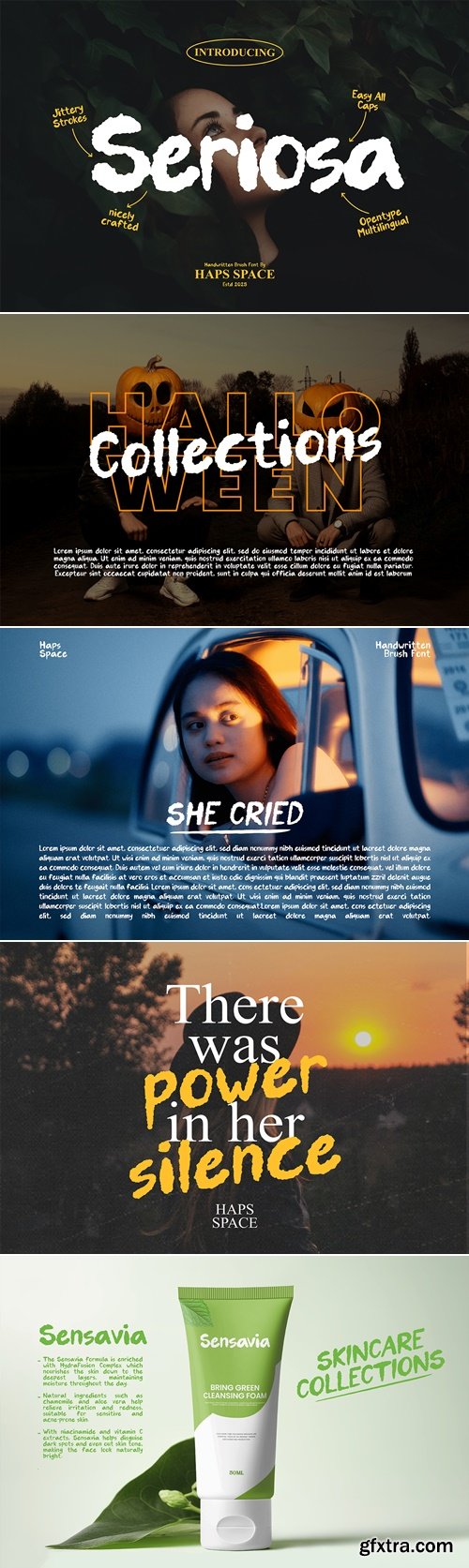
- Seriosa is a bold, all-caps handwritten brush font with a unique jittery stroke effect that gives it a rugged, expressive personality. Perfect for designs that demand attention, Seriosa brings hand-crafted authenticity to your typography with its imperfect charm and raw visual punch.
- Crafted for versatility, Seriosa works great on posters, branding, editorial titles, social media, and anything that needs a loud, artistic voice. With full OpenType multilingual support, this font lets your creativity speak across languages.
Features: Bold handwritten brush style Unique jittery strokes and rough texture All-Caps design for maximum impact Nicely crafted and well-spaced for readability OpenType multilingual support Formats: .OTF .TTF & .WOFF Works with Mac & Windows Ideal for: Poster design Branding & logos Music covers Editorial headlines Social media visuals Art & design merchandise I really hope you'll get pleasure using this font and it will be perfect addition to your font collection! Contact me with an inbox message If you have any question.